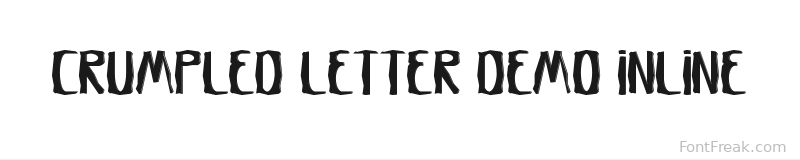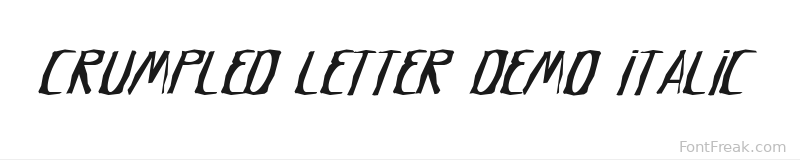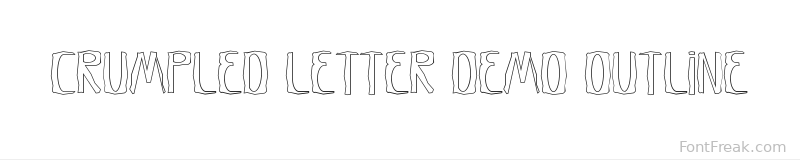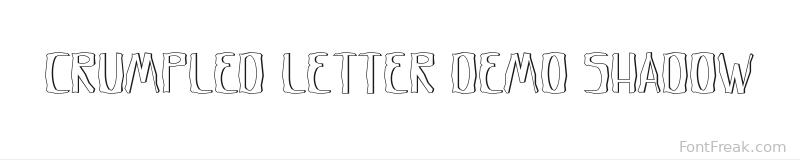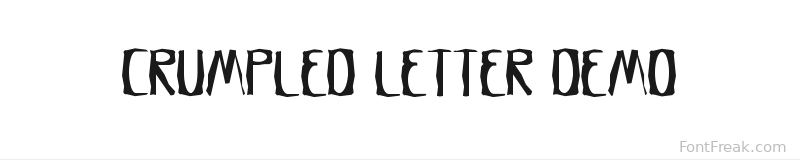
Crumpled Letter Demo Shadow
Crumpled Letter Demo Italic
Crumpled Letter Demo
Crumpled Letter Demo Inline
Crumpled Letter Demo Outline
Crumpled Letter Demo Shadow is a striking display font crafted by Noah Type, ideal for those looking to add a unique touch to their projects. This font is characterized by its decorative style, featuring an eye-catching crumpled effect that gives it a playful and textured appearance. Its stroke weight is consistent yet slightly irregular, which enhances the handcrafted feel, while the inline and outline design creates a dynamic visual contrast. The spacing between the letters is well-balanced, ensuring readability while maintaining a fun aesthetic.
This versatile font can be effectively utilized in various creative contexts. It is particularly suited for wedding invitations, where its whimsical nature can evoke a sense of joy and celebration. Additionally, it works wonderfully for movie posters, providing a modern yet artistic touch that can capture the audience's attention. Restaurant menus can also benefit from the Crumpled Letter Demo Shadow font, adding a unique flair that reflects a casual or trendy dining experience. Content creators will find this font appealing for social media graphics, helping to convey a sense of personality and originality.
What truly sets the Crumpled Letter Demo Shadow font apart is its ability to blend artistic expression with functionality. The distinct crumpled texture and shadow effect make it a standout choice for anyone aiming to add a touch of creativity and individuality to their designs. With this font, your projects are sure to leave a lasting impression.